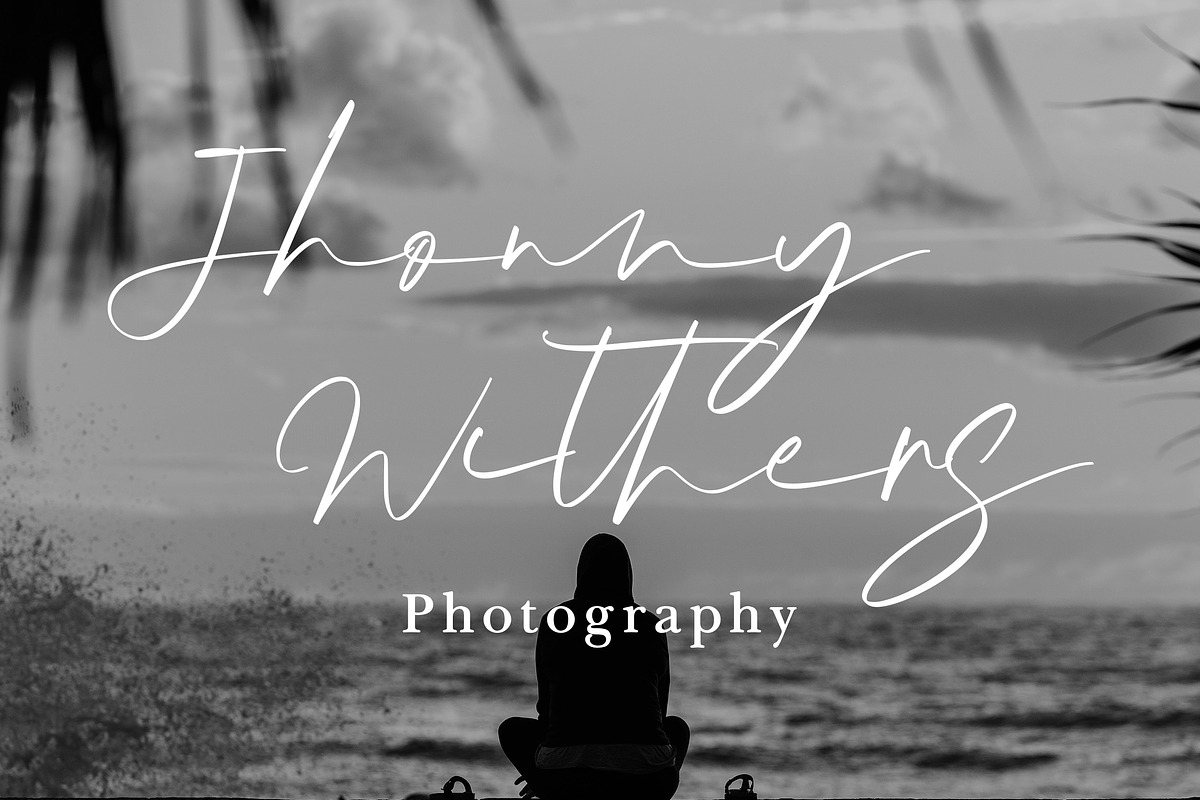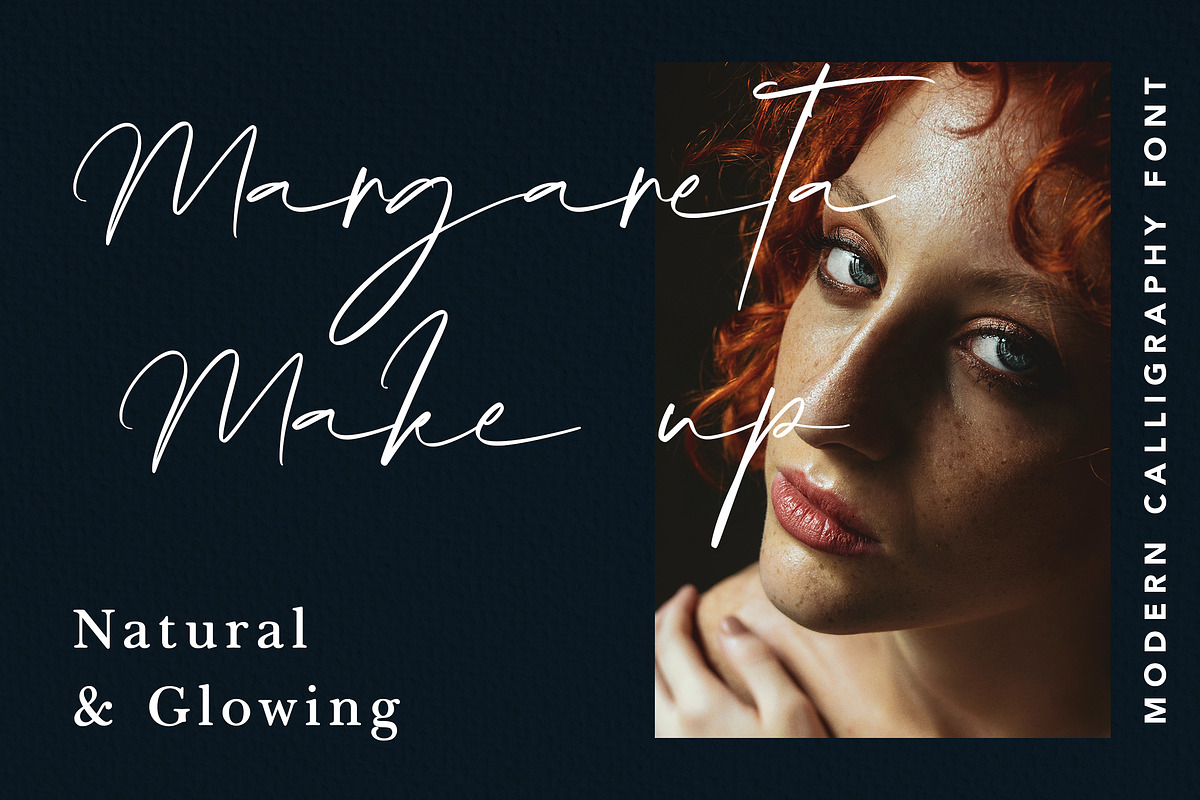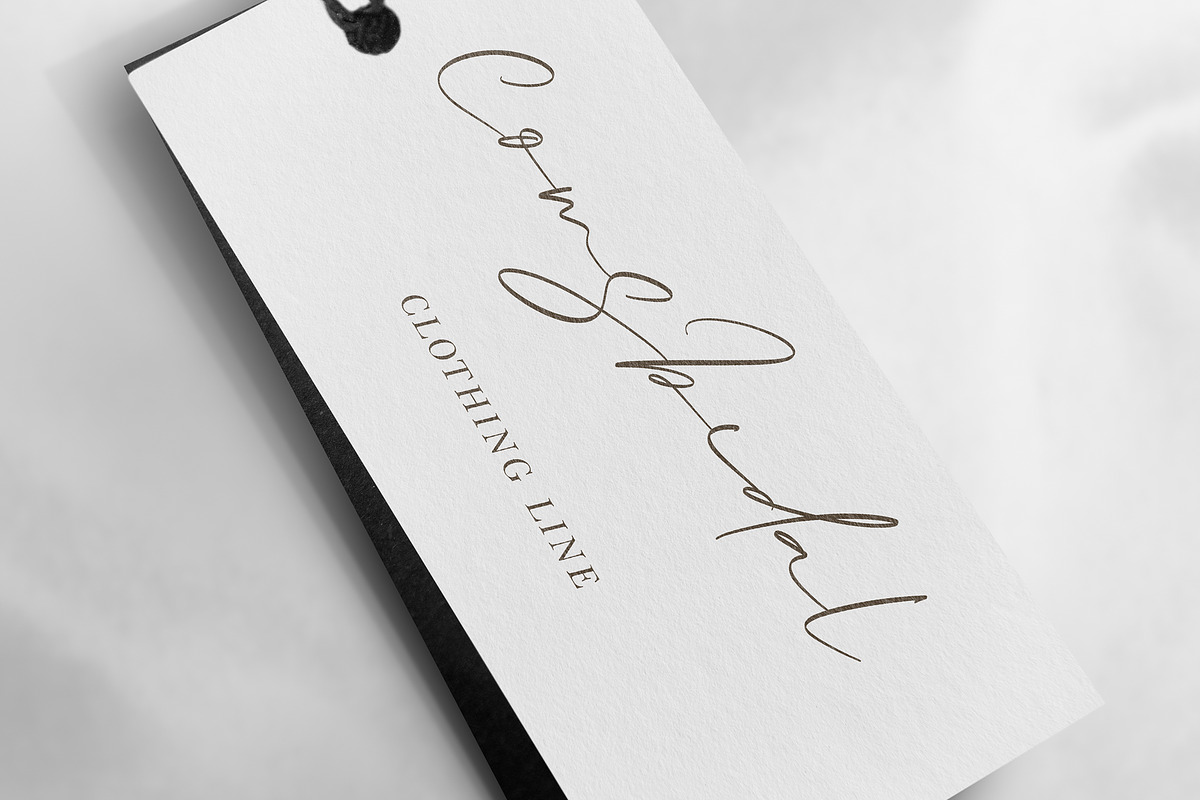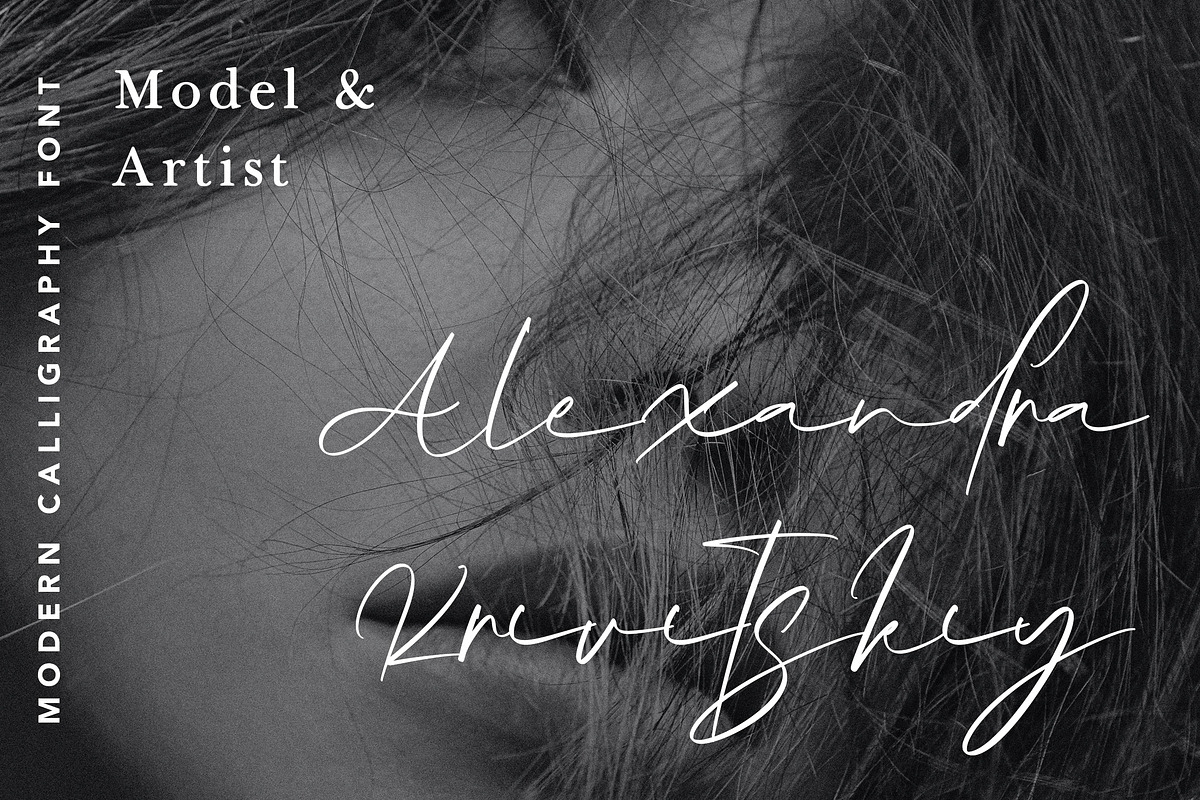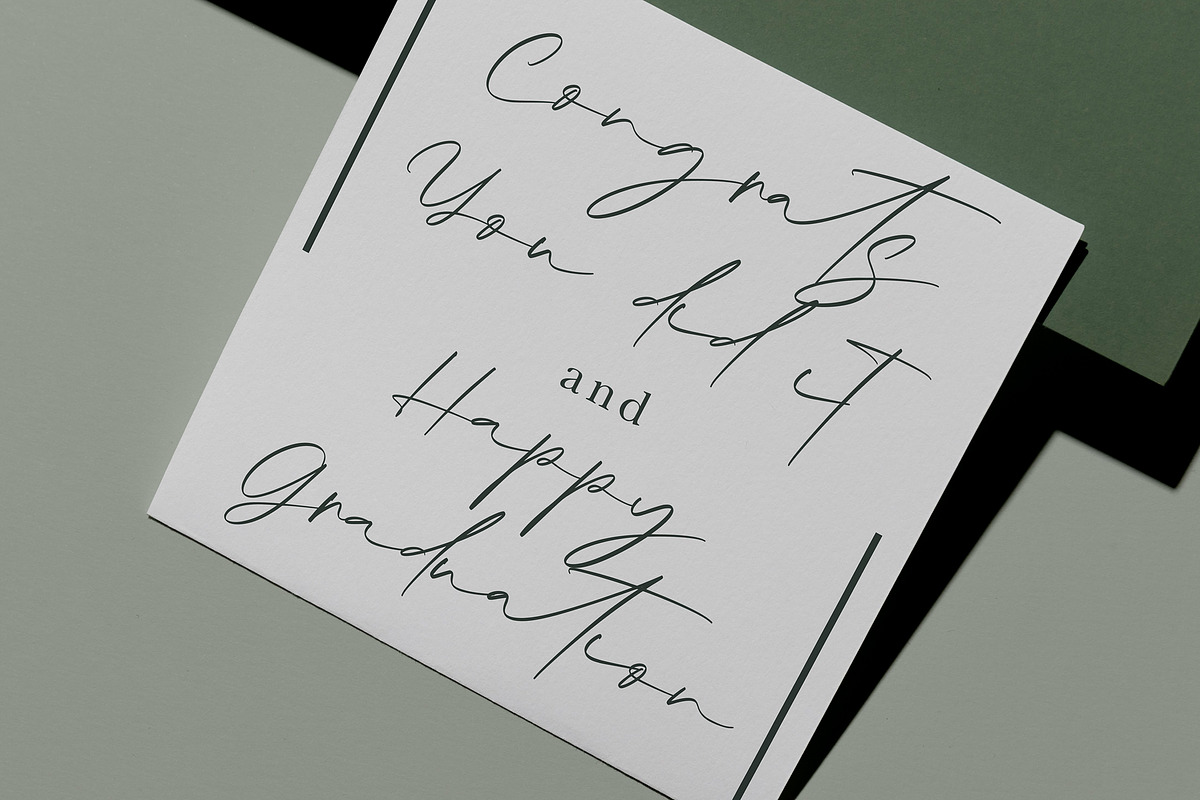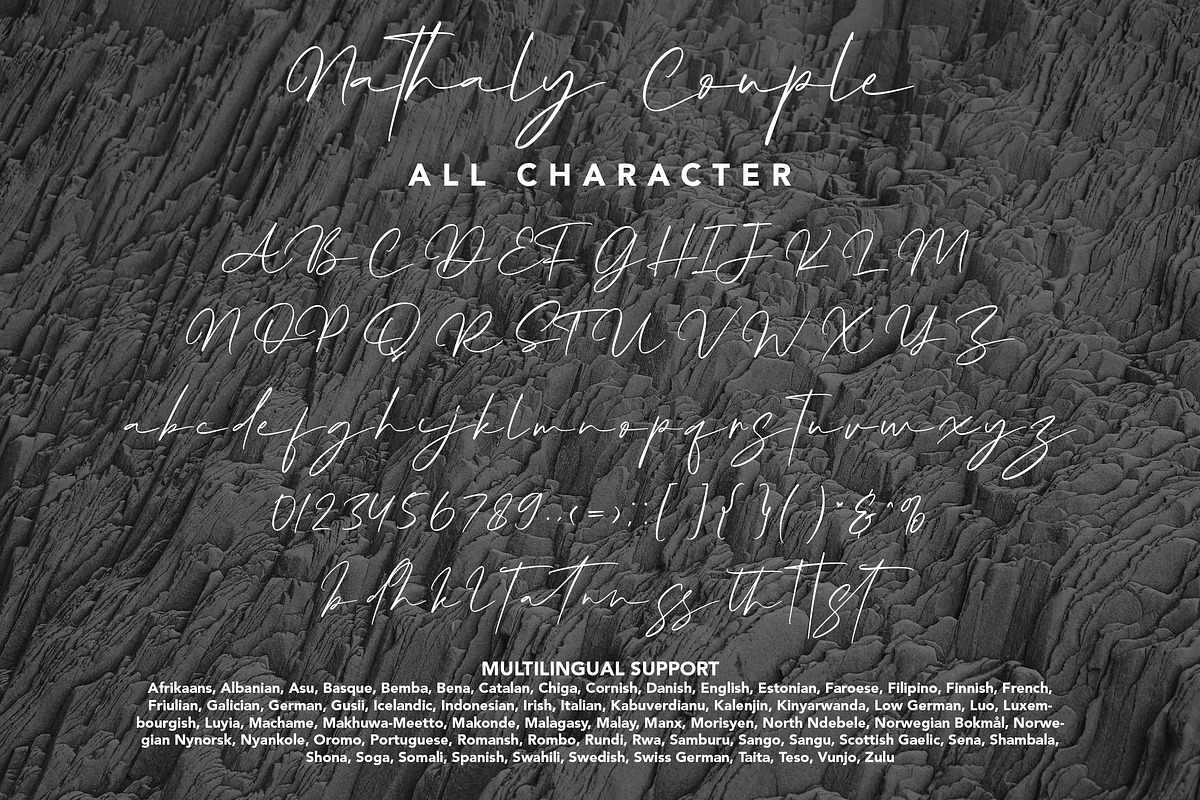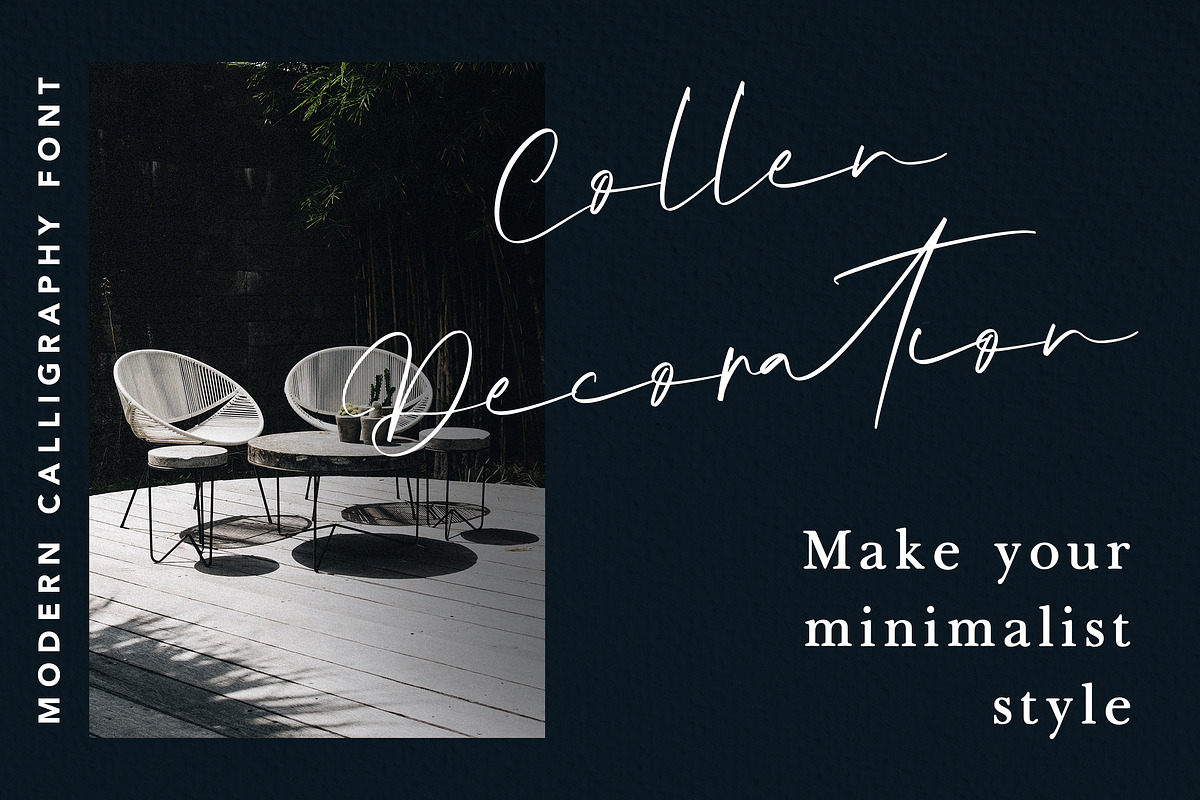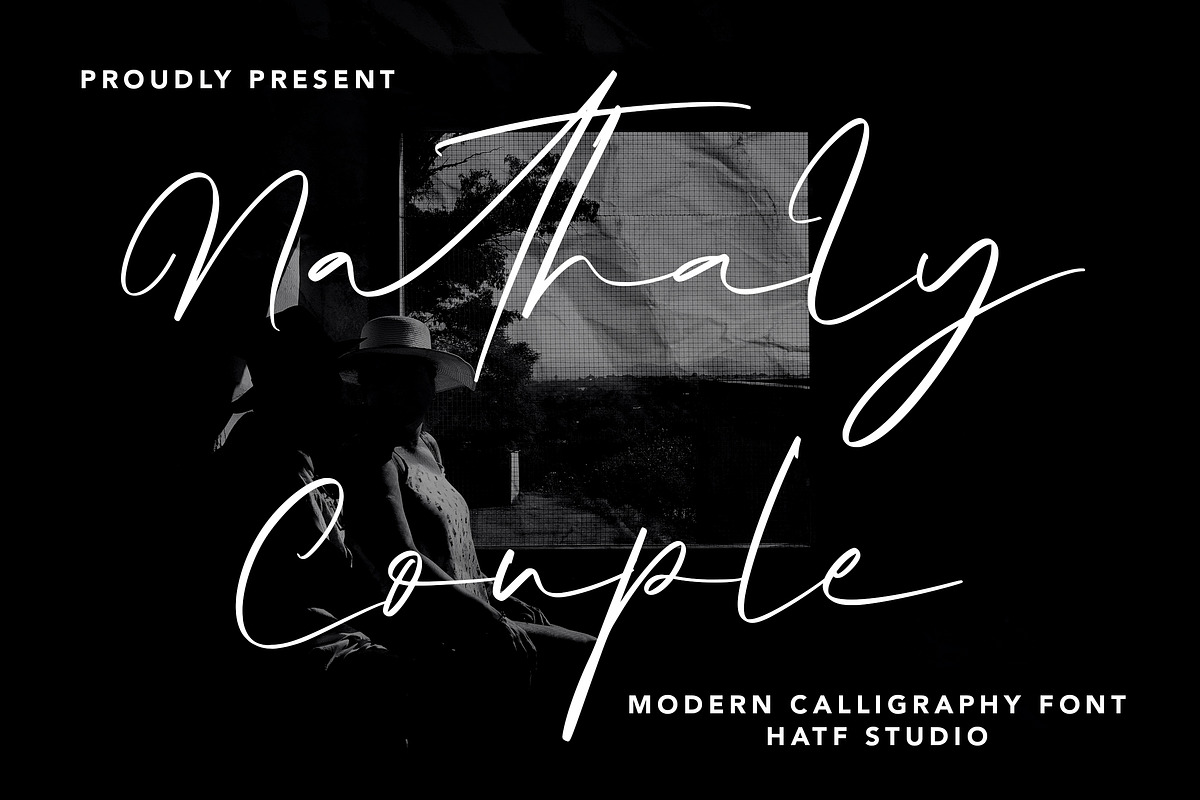
Nathaly Couple
Nathaly Couple is an elegant and romantic modern calligraphy font, designed to bring a classic touch in a fresh and contemporary look.
With smooth strokes and graceful curves, this font creates a feminine, soft, and elegant impression. Suitable for use for various design needs, such as wedding invitations, logos, branding, motivational quotes, to social media.
Nathaly Couple is able to add a personal and emotional touch to every work. This font is also easy to read and combines traditional elements with a modern style, making it a perfect choice for those who want to combine beauty and simplicity in their designs.